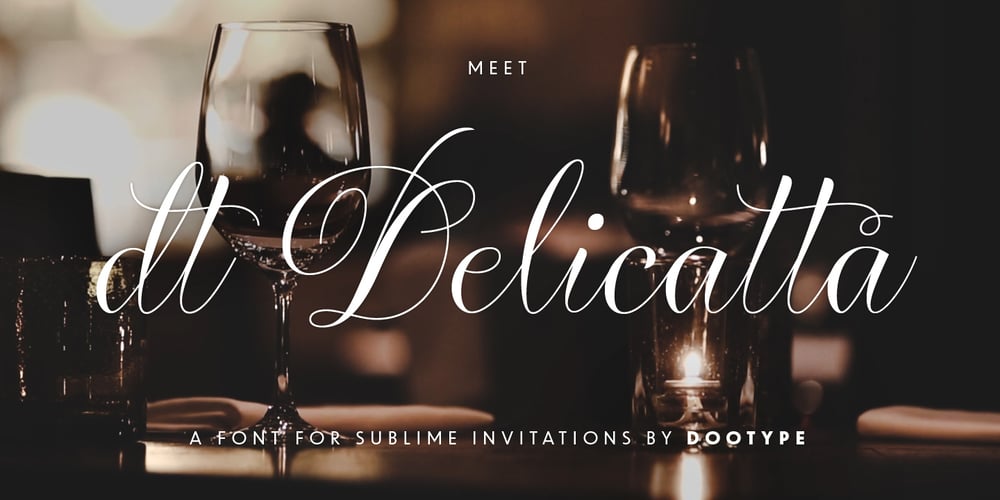
dT Delicatta Font Family was designed by Eduilson Wessler Coan and published by dooType. dT Delicatta contains 1 styles and family package options. Easy to use, but hard to miss. That’s dT Delicatta. An elegant script face that adds a special touch to any message. Script typefaces usually come packed with endless features and, more often then not, all those possibilities take their toll on the designer or art director. With usability in mind, we kept dT Delicatta simple and straightforward to use while delivering refined shapes that enhance your or your client’s communication. dT Delicatta is a revised, improved and virtually new font of our old classic Delicatta